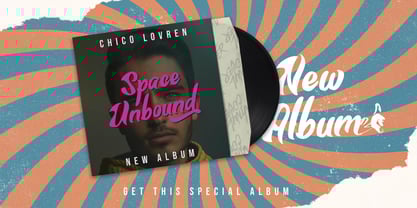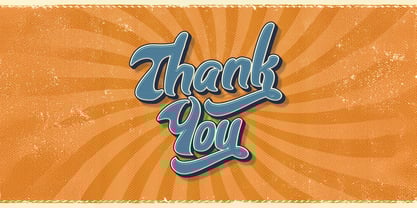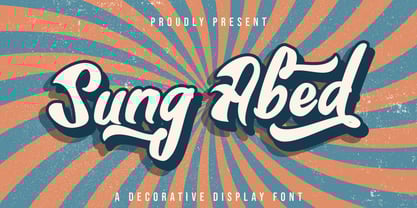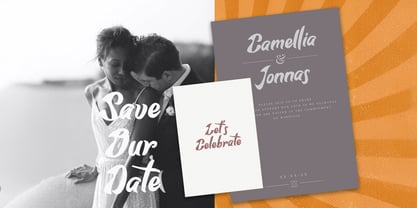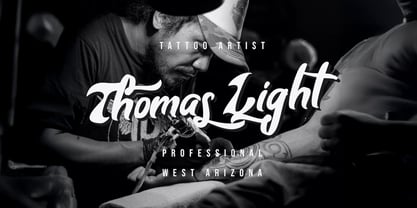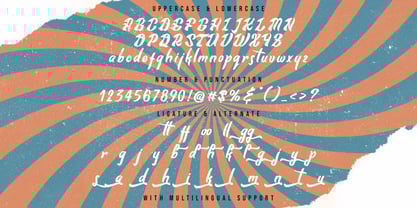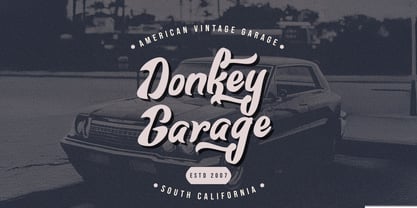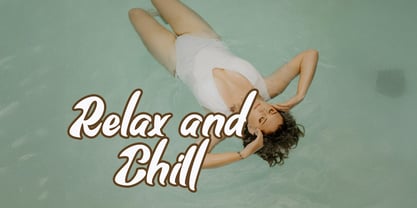
The Sung Abed Font Family was designed by Virgiawan Listanto and published by Stringlabs Creative Studio. Sung Abed contains 1 styles.
Sung Abed is a bold and artistic decorative display font that stands out with its unique character and flair. Designed to grab attention, each letter features intricate details and stylized shapes, making it perfect for headlines, logos, and creative projects that need a statement.